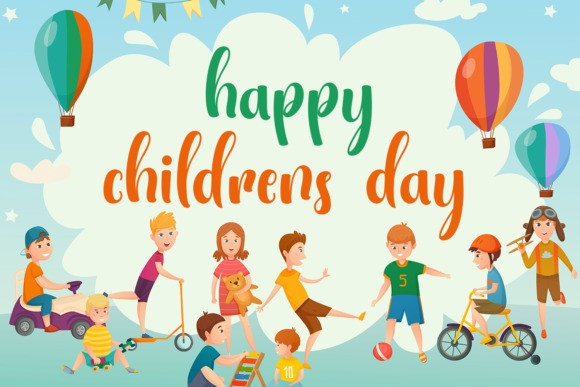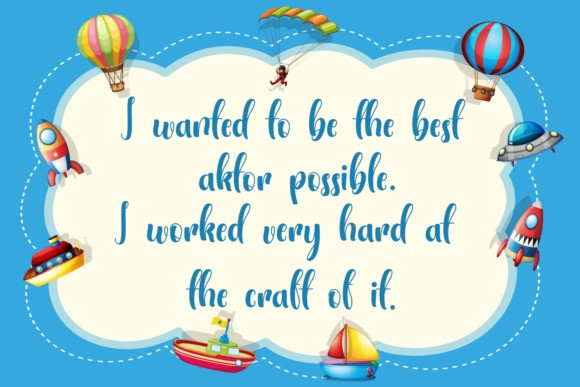
Sweet Berlyn Script Font
Sweet Berlyn is a sweet, all round and flexible handwritten font. Warm, romantic and jolly, this font will turn each of your project ideas into real works of art. Have fun with this beautiful font and explore its endless variations.